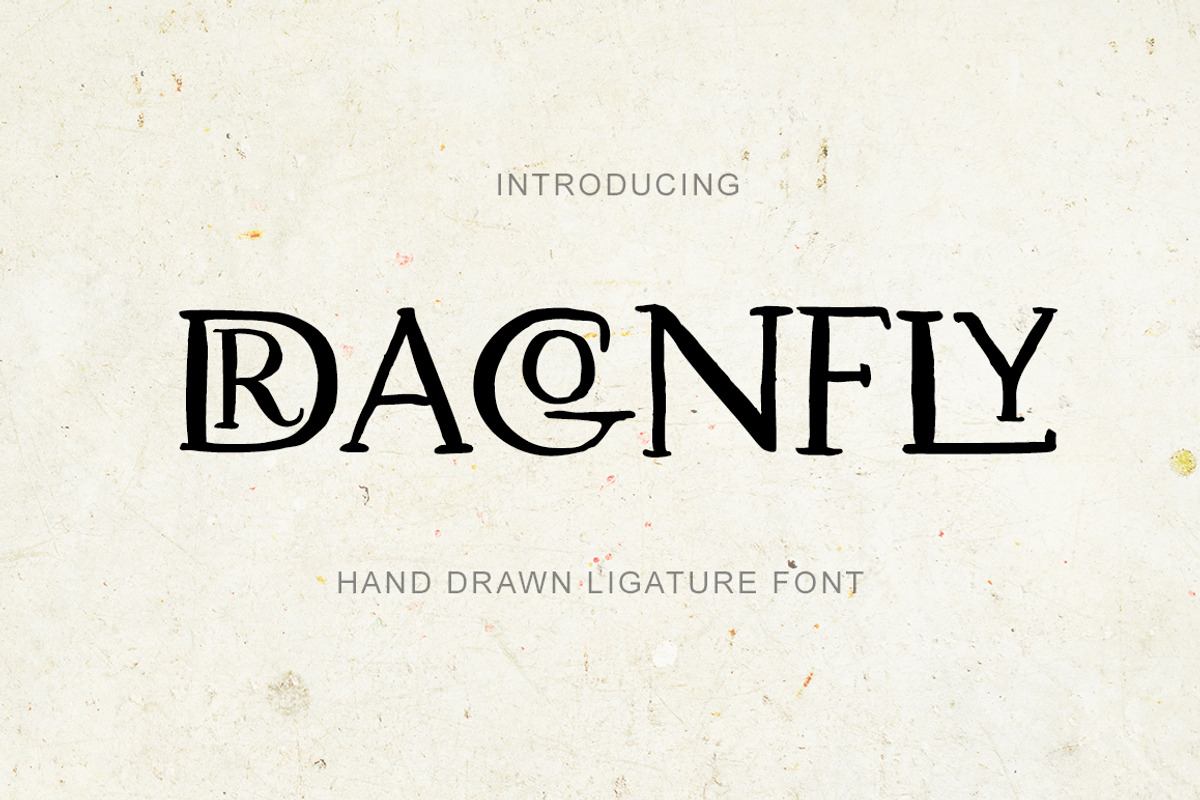
Dragonfly Font Free Download is a striking uppercase ligature font that blends modern minimalism with artistic elegance. Designed to make a statement, Dragonfly features clean, sharp letterforms enhanced by creative ligatures—perfect for high-end branding, fashion labels, editorial headlines, logo design, and luxury packaging.
Every letter is crafted to exude sophistication, while the unique ligatures add a custom, designer feel to your typography. This font includes uppercase characters, punctuation, numerals, and a wide range of stylish ligatures that allow your text to flow beautifully and stand out.
Whether you’re building a premium brand identity or creating elevated visual content, Dragonfly Font Free Download gives your designs a bold yet refined look. Use it freely in personal or concept projects, and be sure to purchase the correct license for any commercial use. Transform your typography with the sleek elegance of this uppercase ligature font.